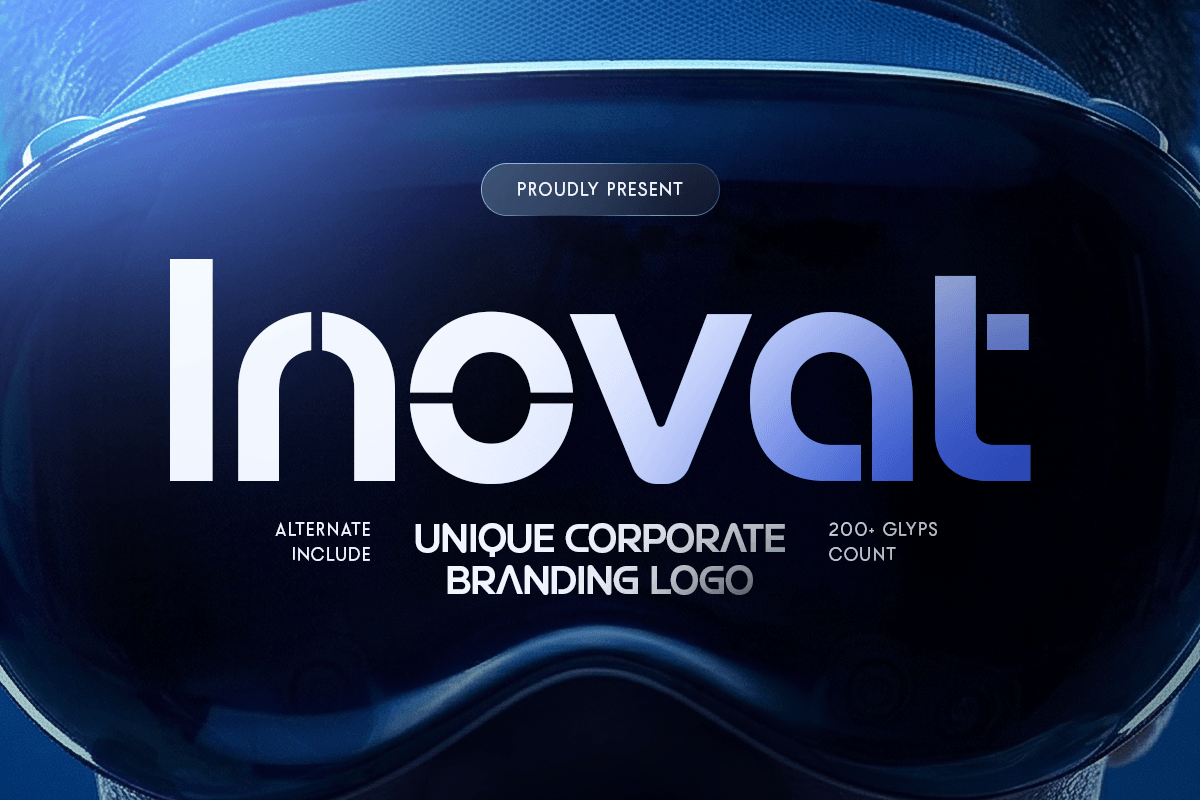
Inovat
-Unique Corporate Branding Logo
Inovat - Unique Corporate Branding Logo
Inovat is a unique corporate branding logo font designed to deliver clarity, confidence, and a distinctive professional tone. With clean letterforms, balanced proportions, and a modern visual rhythm, this typeface creates a polished identity that feels reliable, innovative, and instantly brand-ready.
Built for corporate and branding-focused typography, Inovat works beautifully across logos, wordmarks, company profiles, presentations, reports, website headers, UI design, packaging, signage, social media graphics, and marketing visuals. Its unique structure helps brands stand out while maintaining the clean readability needed for professional communication.
Whether you’re building a startup identity, refreshing a corporate brand system, or designing a modern business logo, Inovat provides a strong typographic foundation that makes your visual identity feel smart, organized, and memorable.
Inspiration Behind Inovat
Inovat is inspired by modern corporate identity systems and innovation-driven branding—where clean structure, trust, and distinction shape strong business communication. The design focuses on professional clarity and unique visual balance to support logos, digital-first branding, and contemporary identity systems.
Inovat Font Features:
• Unique corporate letterforms optimized for logo and branding design
• Clean professional structure for consistent brand identity
• Strong readability for wordmarks, headlines, and business layouts
• Modern visual rhythm for sleek corporate communication
• Corporate logos, wordmarks, and business identity systems
• Startup branding, company profiles, reports, and presentations
• Websites, UI/UX, dashboards, and digital product typography
• Packaging, signage, brochures, and professional marketing layouts
• Social media branding, ads, and modern communication assets